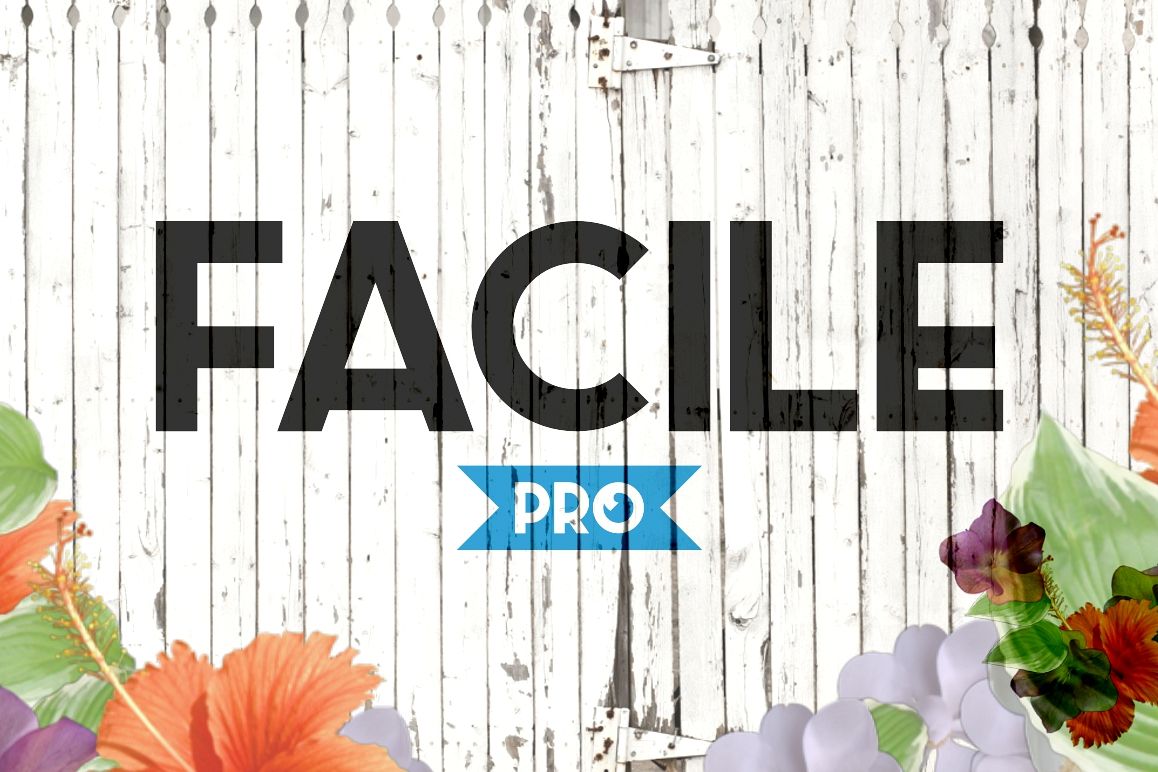
Facile Pro
Facile Pro is a simple, bold and playful all-caps sans serif.
Crafted with some vintage and 1920-30s art-deco souls.
- Numerals
- Basic punctuations
- Accents